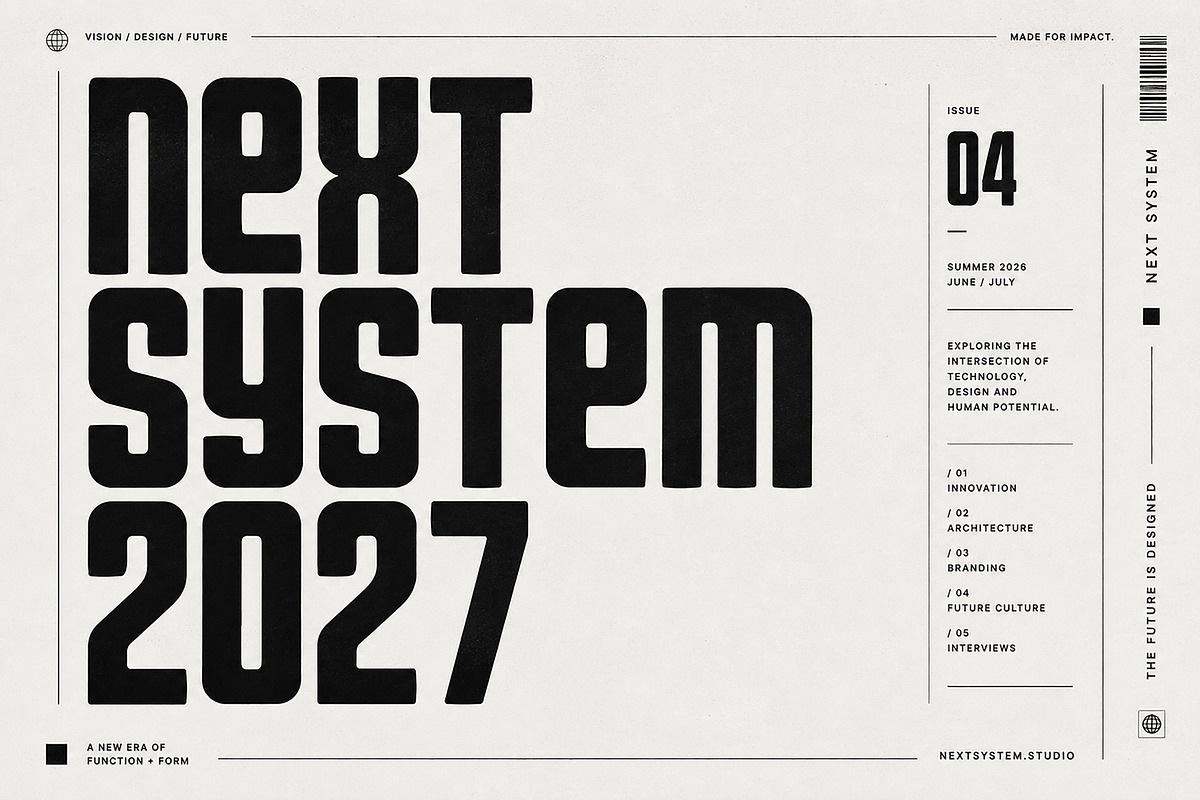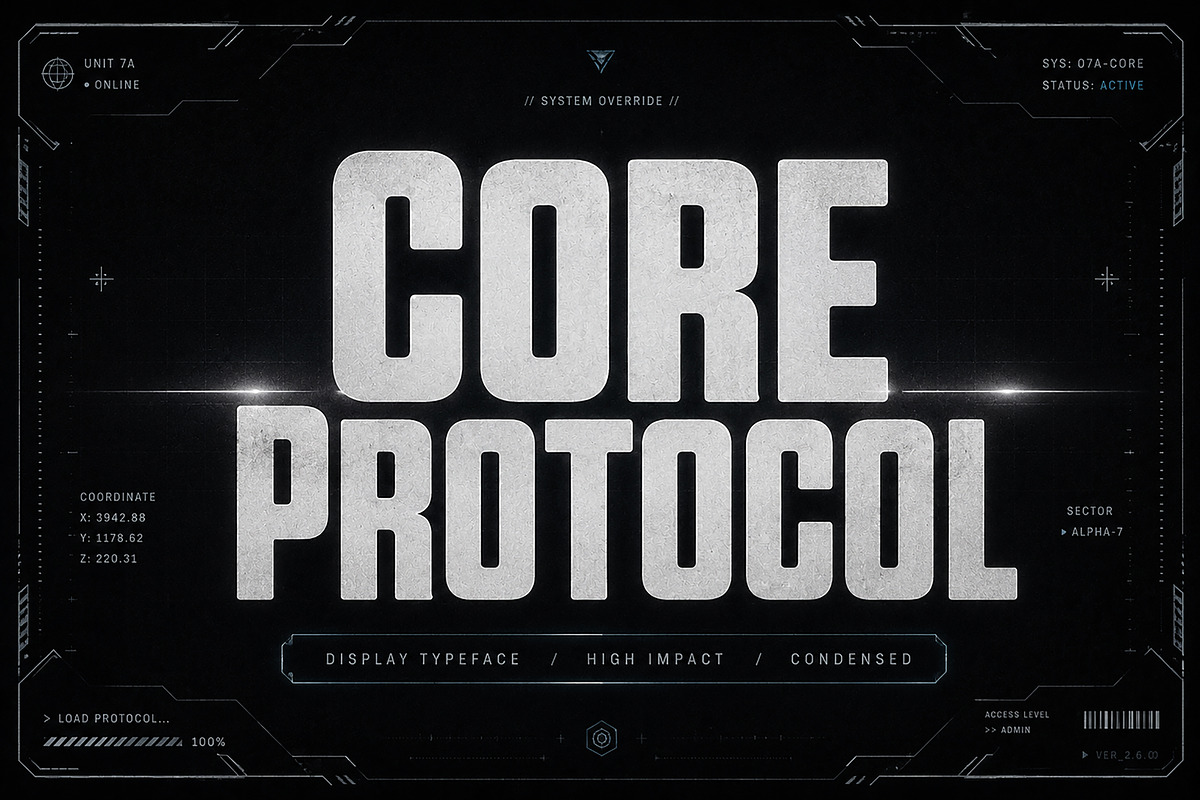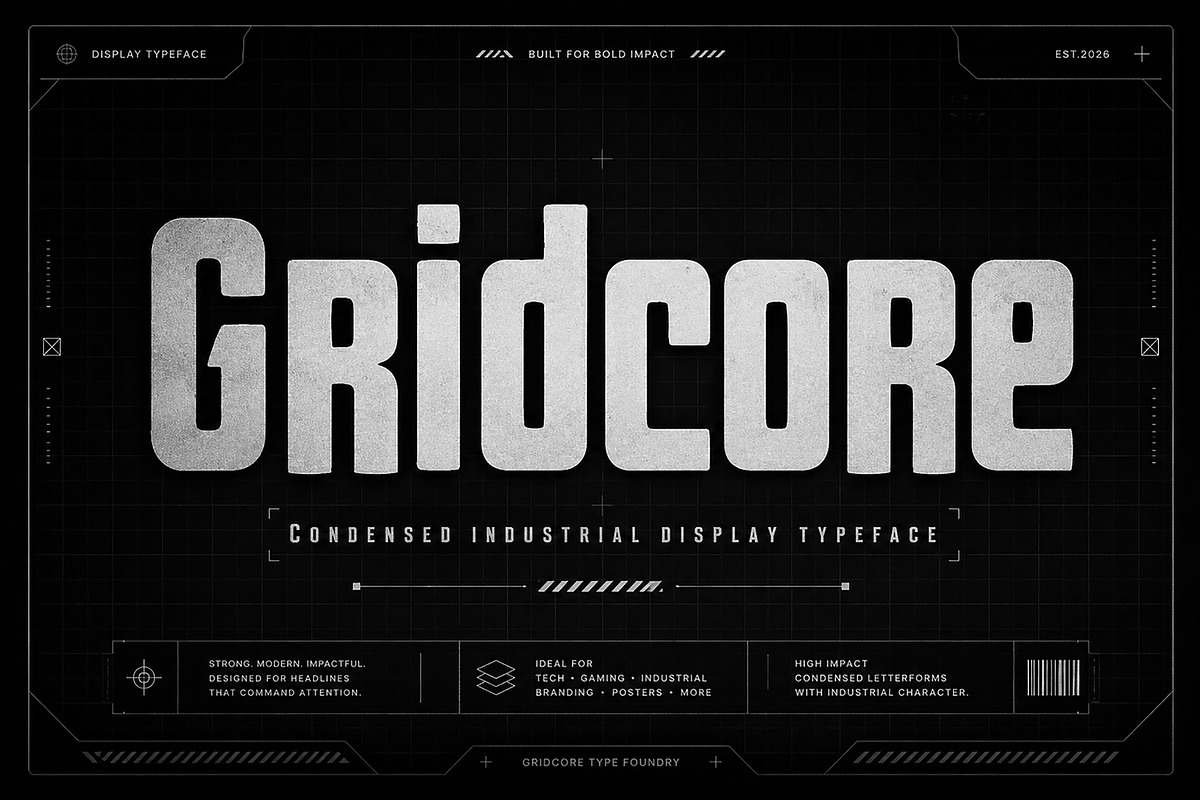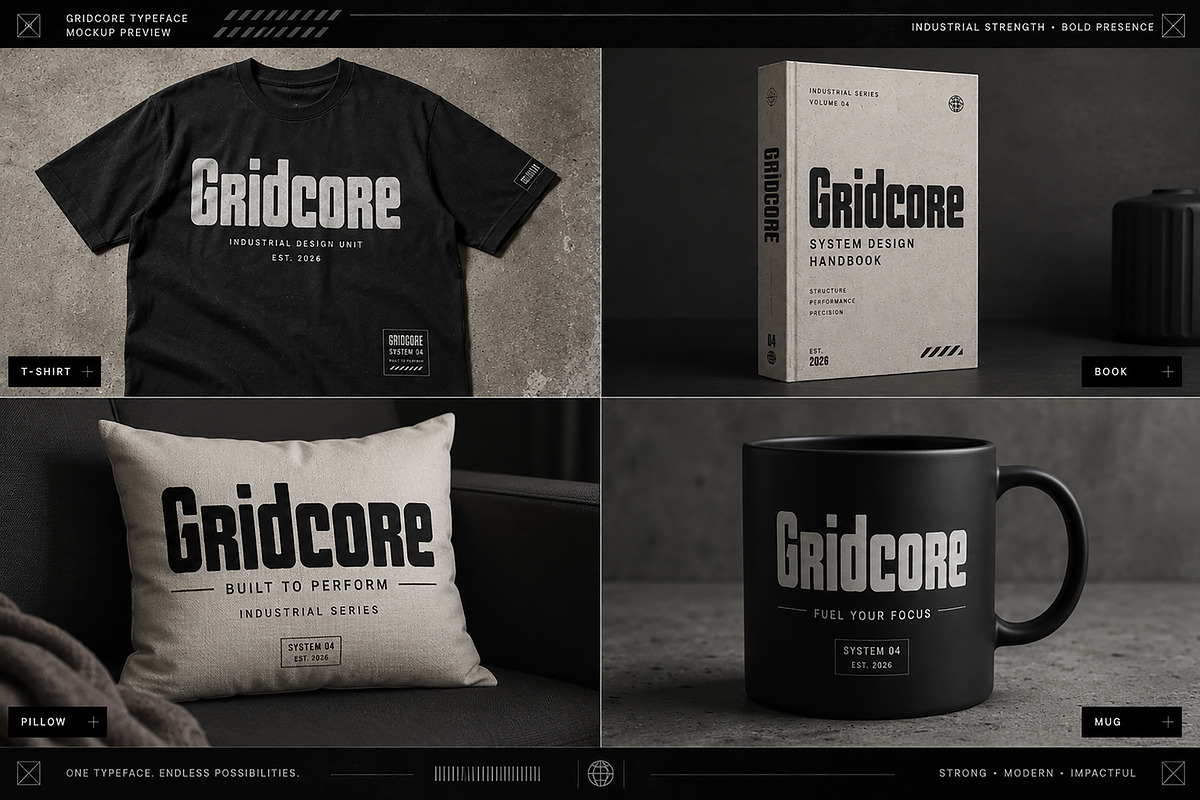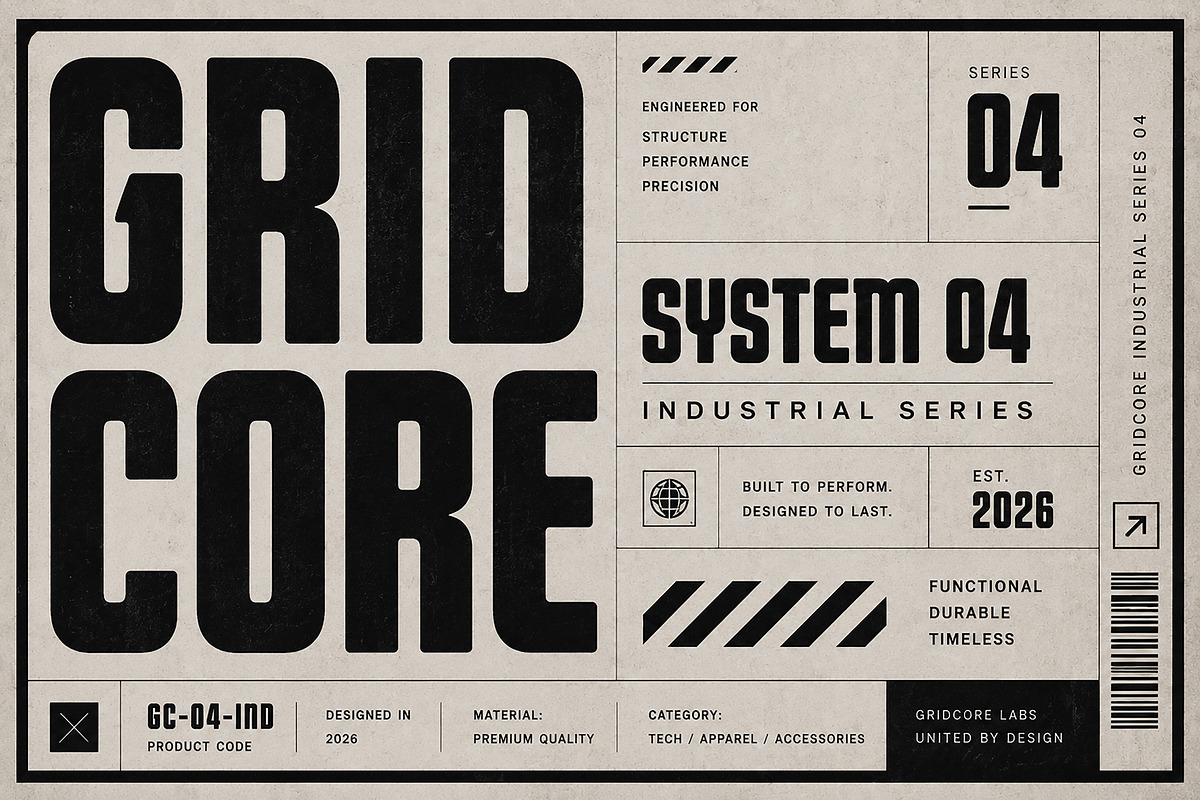
Gridcore
Gridcore – Condensed Industrial Display Font
Gridcore is a bold condensed display typeface built for powerful, modern, and high-impact visual design. With its strong geometric structure, compact proportions, and distinctive industrial character, Gridcore is designed to make headlines impossible to ignore.
Its bold letterforms combine a futuristic, technical, brutalist, and industrial aesthetic, making it an excellent choice for designers working on gaming graphics, technology branding, sports visuals, streetwear, posters, packaging, editorial layouts, and contemporary brand identities.
Gridcore works especially well at large sizes, where its condensed construction and strong personality can become the main visual element of a design. Whether you're creating an aggressive gaming title, futuristic poster, bold apparel graphic, product packaging, or modern editorial cover, Gridcore delivers a confident and memorable presence.
Logo & Branding
Posters & Headlines
Gaming & Esports Graphics
Sci-Fi & Futuristic Designs
Technology Branding
Industrial Design
Brutalist Typography
Streetwear & Apparel
T-Shirt Designs
Packaging & Labels
Book & Magazine Covers
Editorial Design
Sports Graphics
YouTube Thumbnails
Advertising & Promotional Design
Font Name: Gridcore
Style: Condensed Industrial Display
Best Use: Display Typography, Headlines & Branding
Give your next project a bold, structured, and industrial identity with Gridcore.